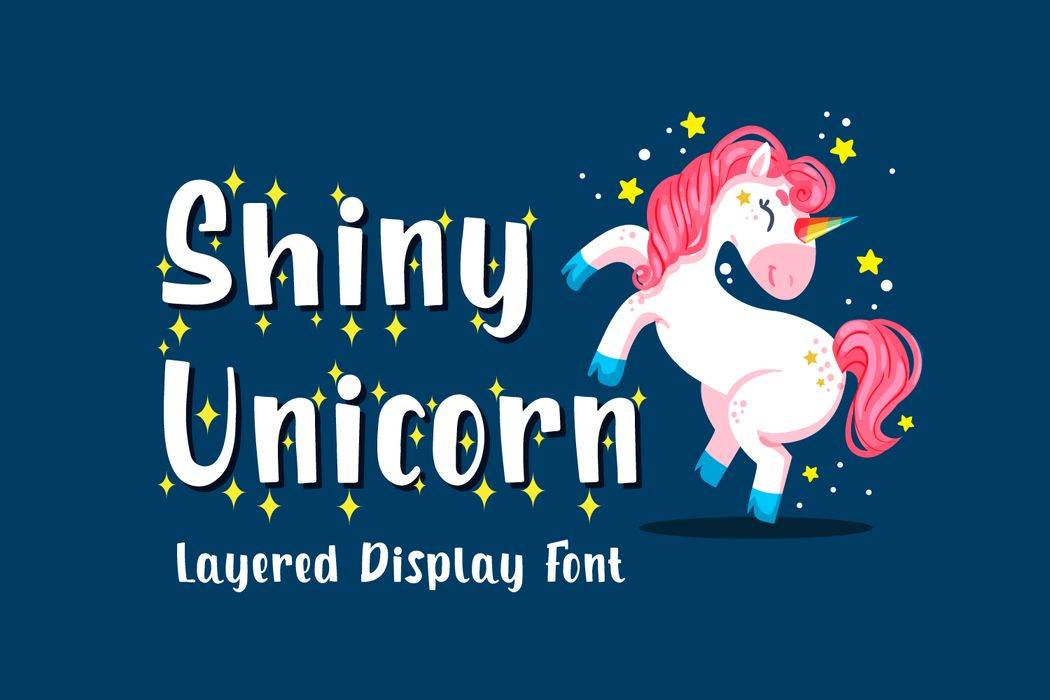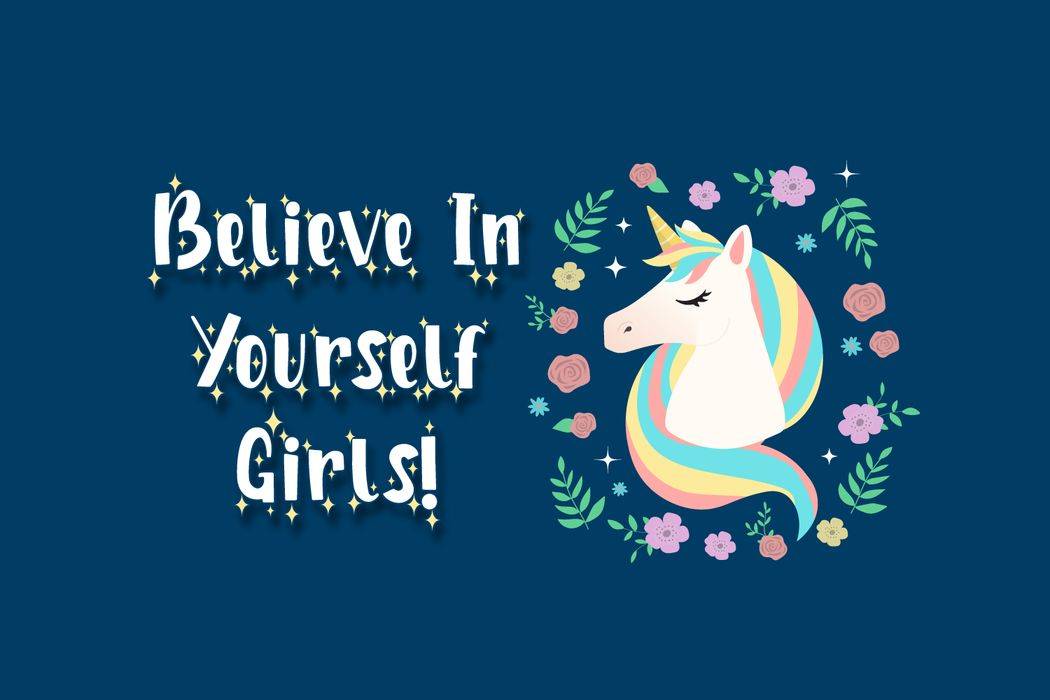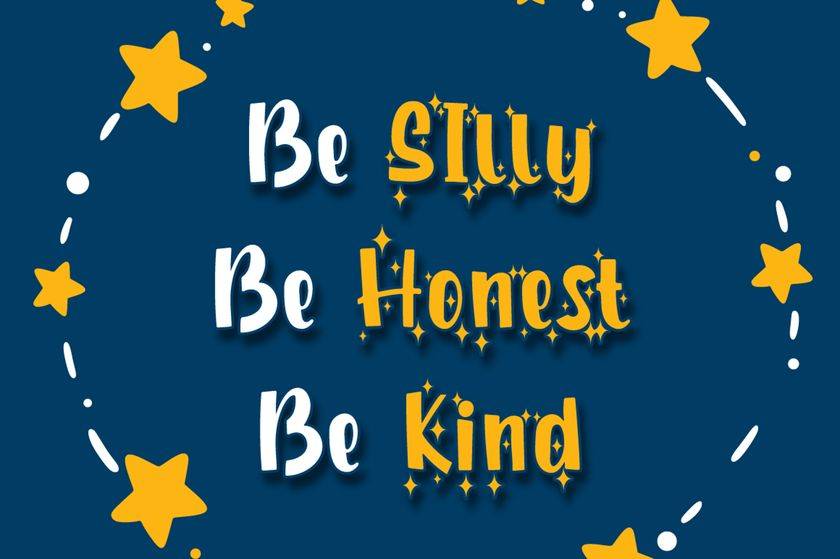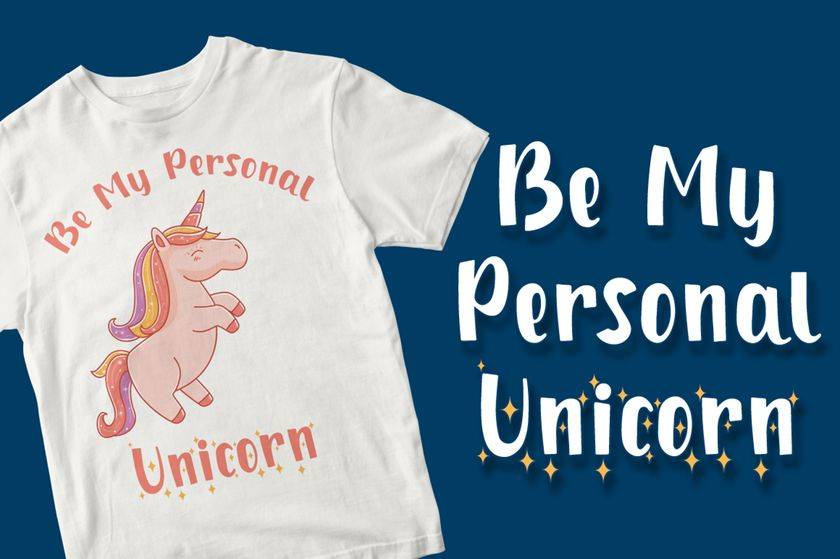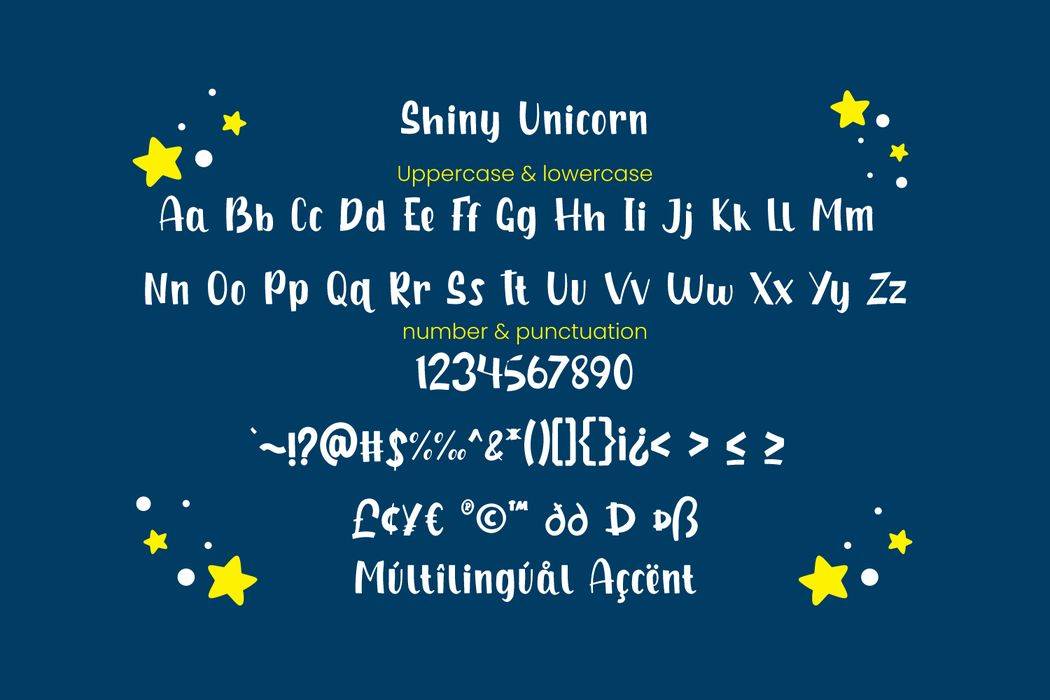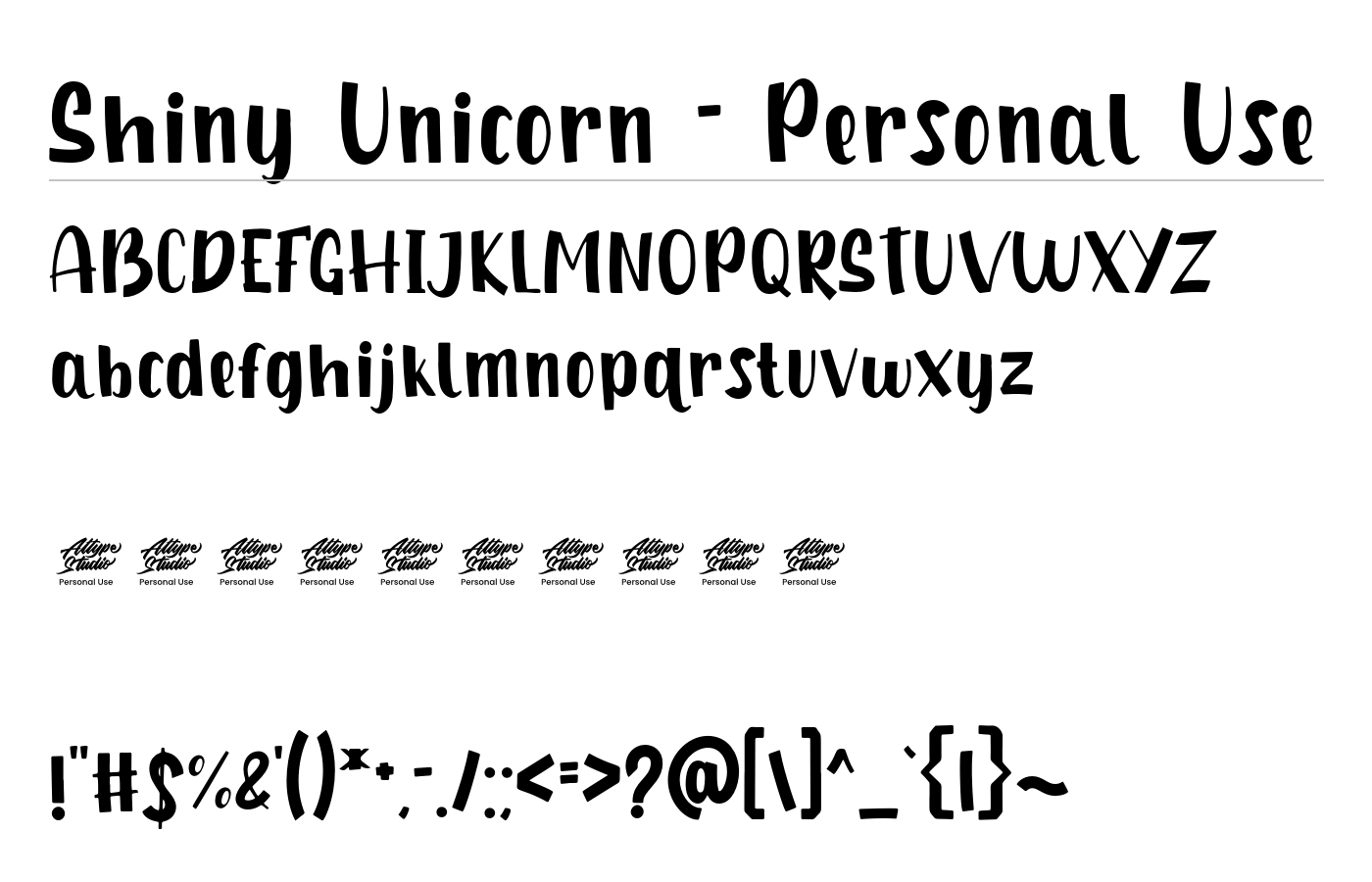
Shiny Unicorn is a playful, casual sans serif font with a hand-drawn feel, featuring uneven strokes and quirky letter shapes that add charm and personality. Its medium weight and upright posture make it easy to read while maintaining a friendly and whimsical vibe, perfect for creative projects, children’s materials, and informal branding. This font shines best in headlines, logos, and packaging where a fun and approachable style is desired.
Shiny Unicorn Font
About Shiny Unicorn Font